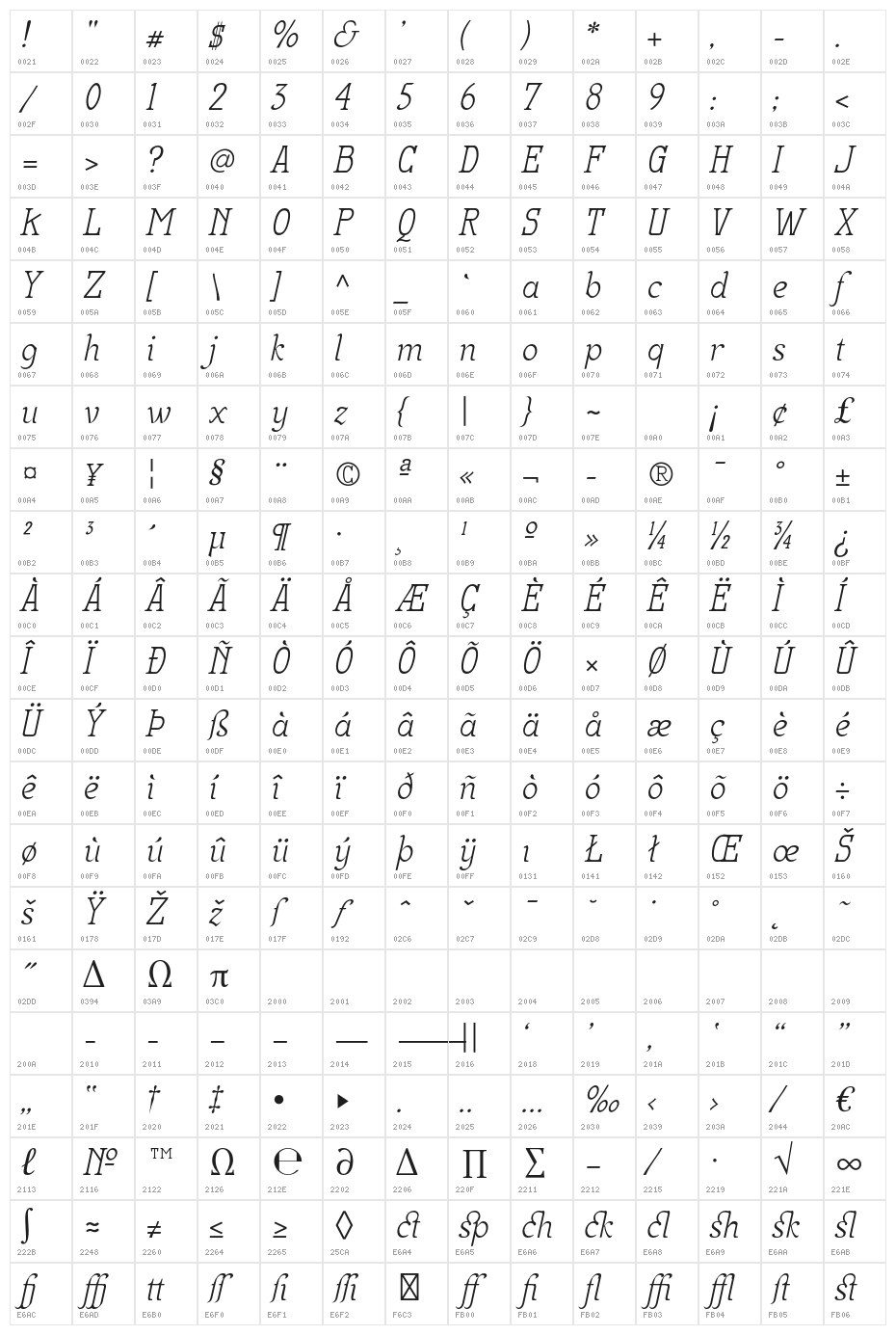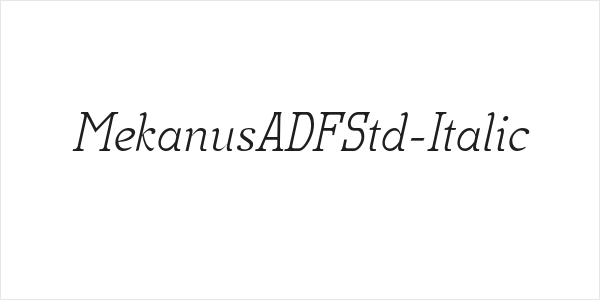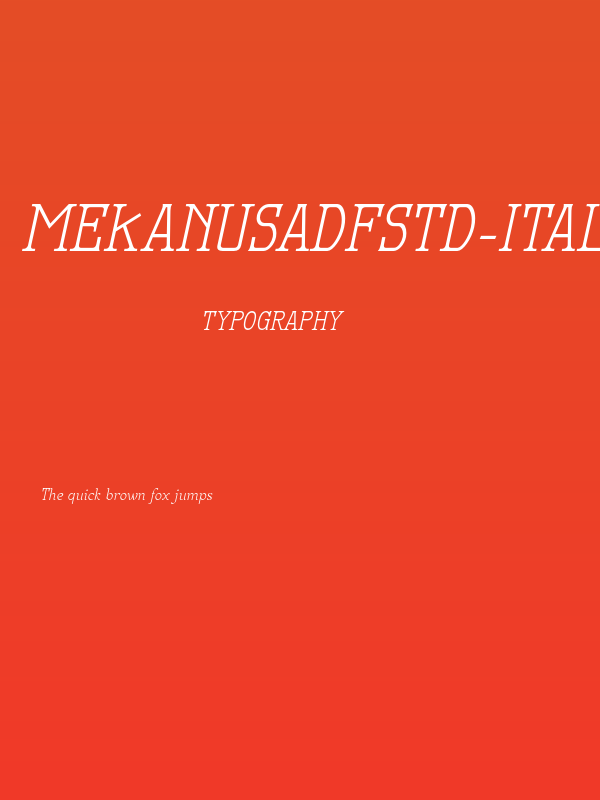
MekanusADFStd-Italic Font
MekanusADFStd-Italic Description
This font exhibits a classic italic style with a refined and elegant appearance. The characters are slightly slanted, giving a sense of motion and sophistication. The uppercase letters are tall and narrow, while the lowercase letters maintain a consistent flow with smooth curves. The numerals are well-proportioned, aligning seamlessly with the overall design. Special characters are distinct and maintain the font's graceful aesthetic. The font's italic nature adds a touch of formality and is suitable for projects requiring a traditional yet stylish look.
Overall StyleClassic
Proposed ProjectsIdeal for formal invitations, elegant branding, classic book covers, and sophisticated editorial designs.